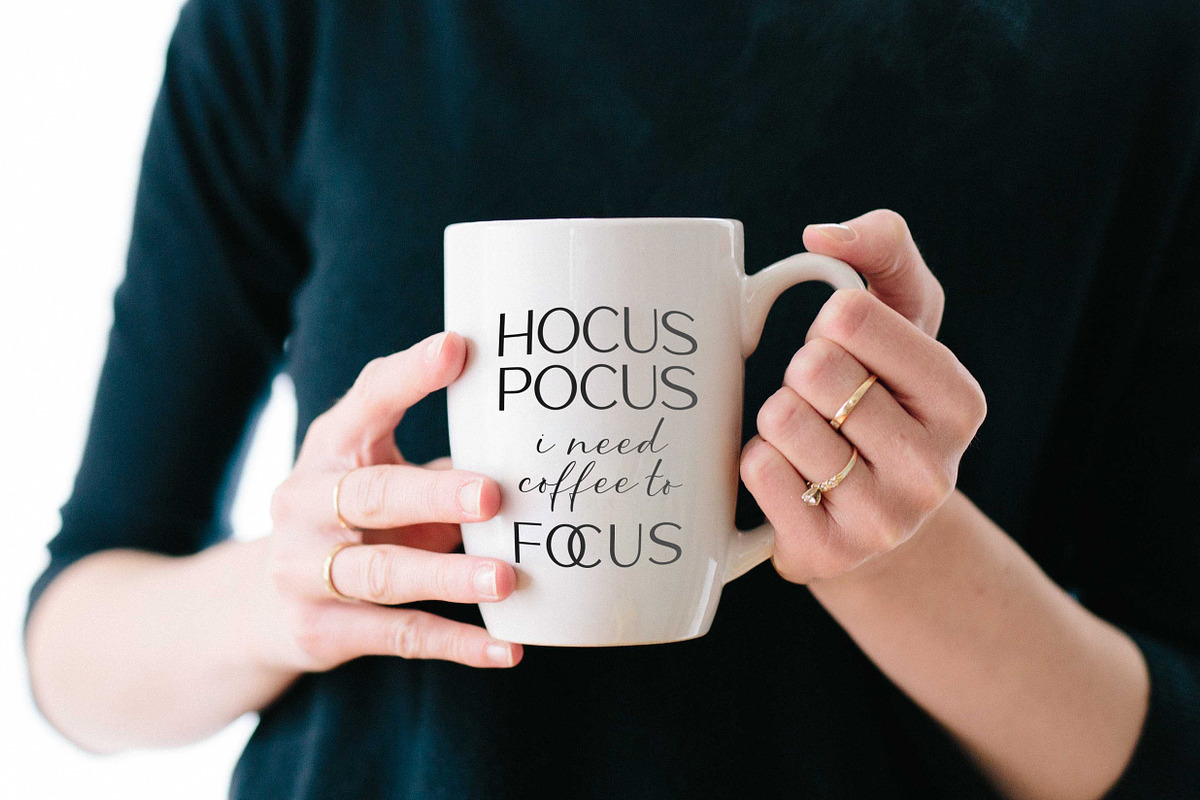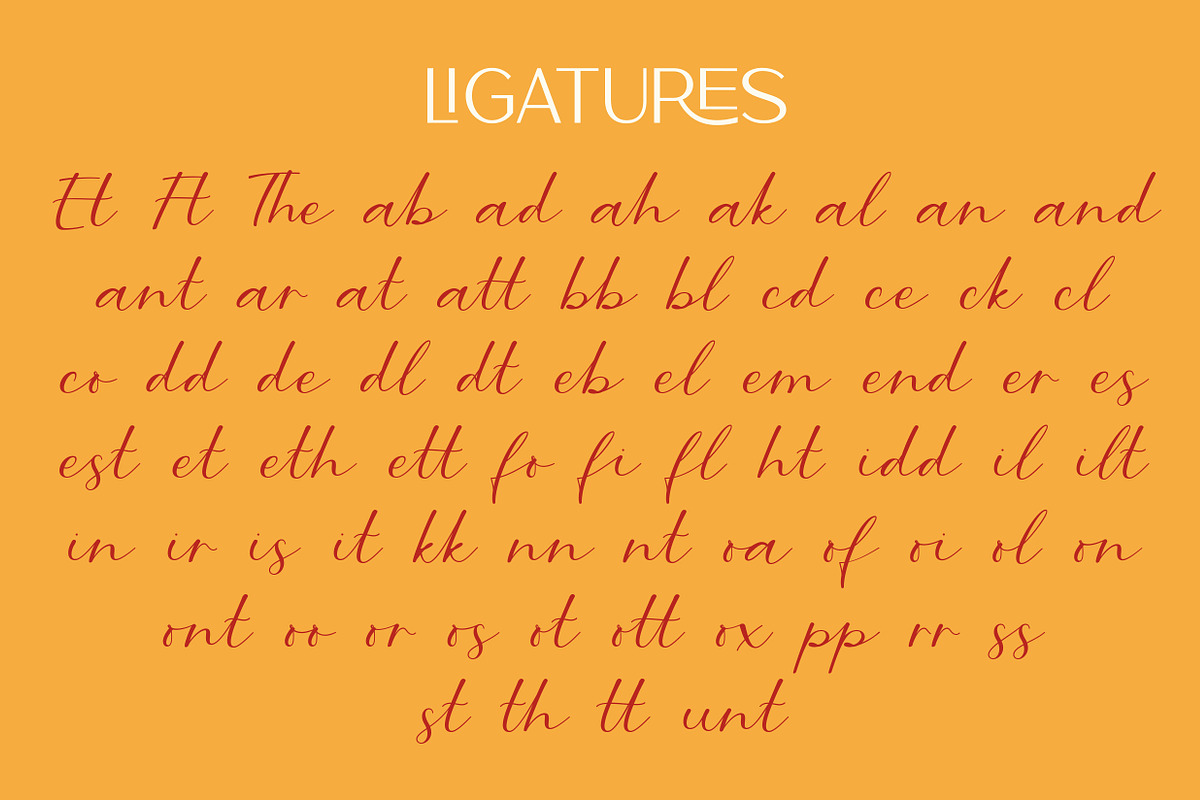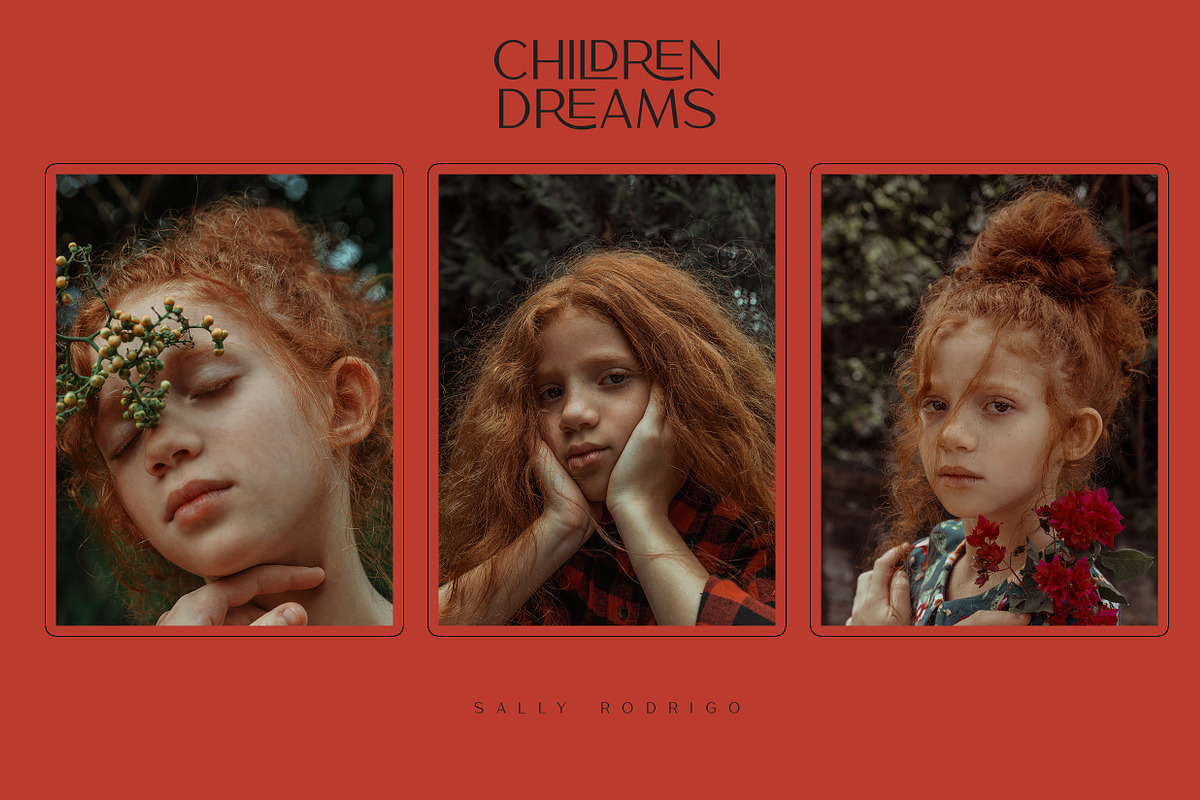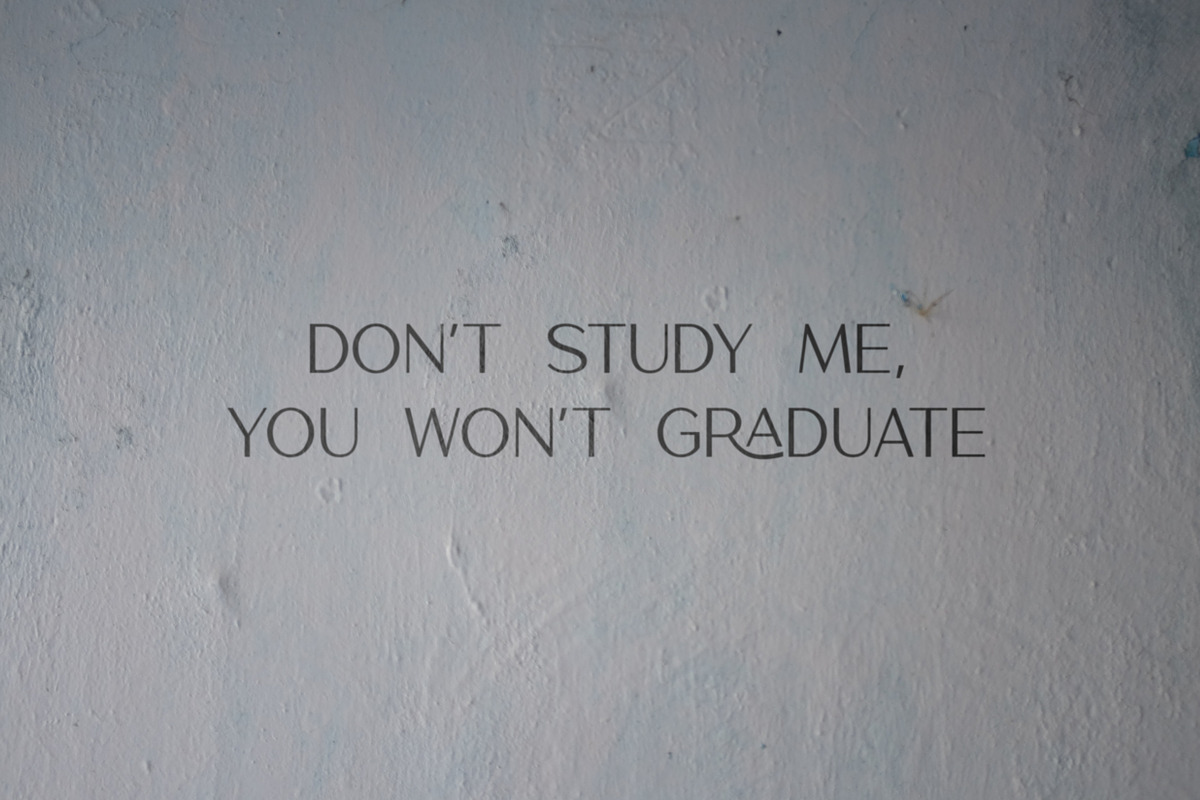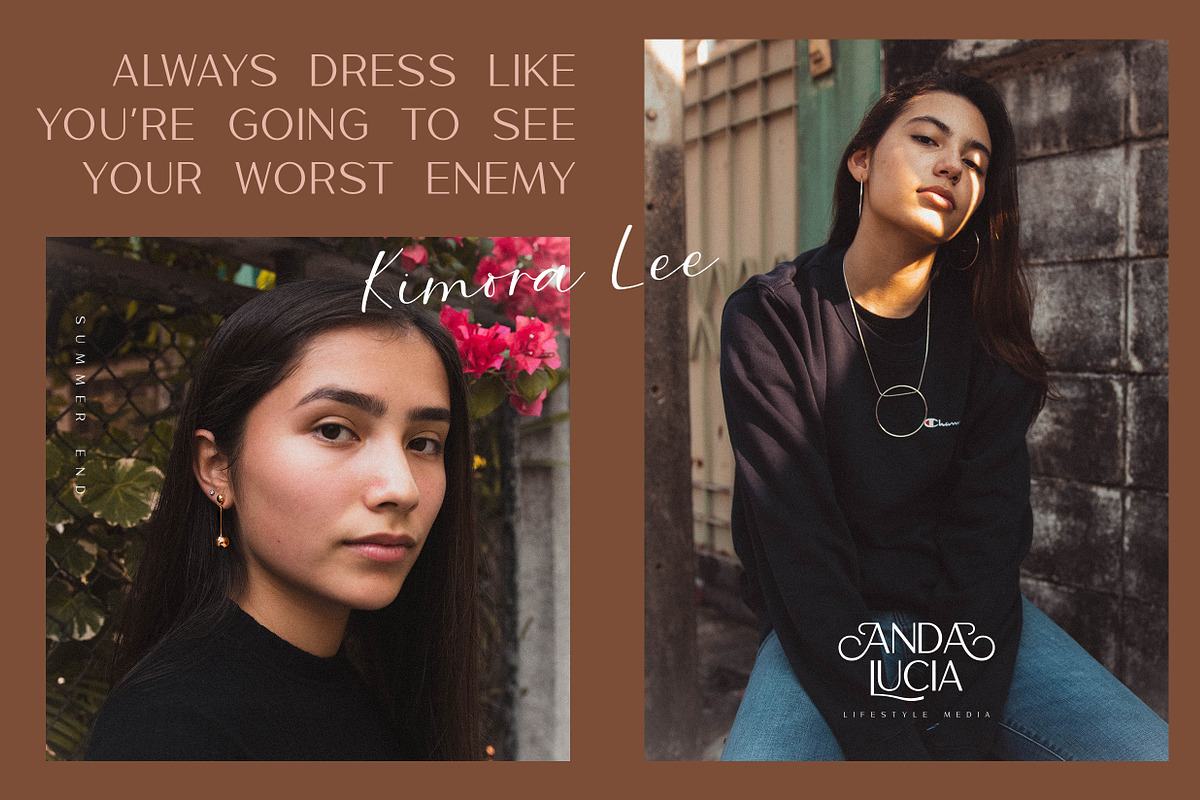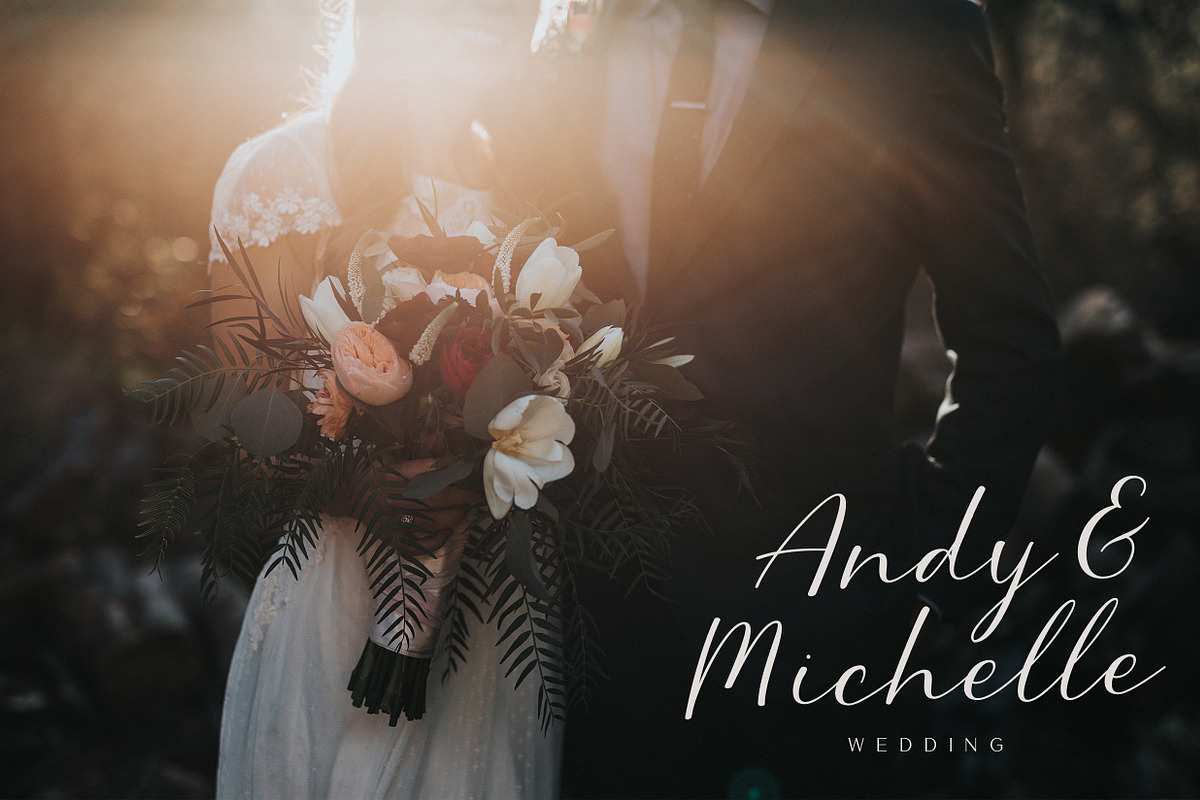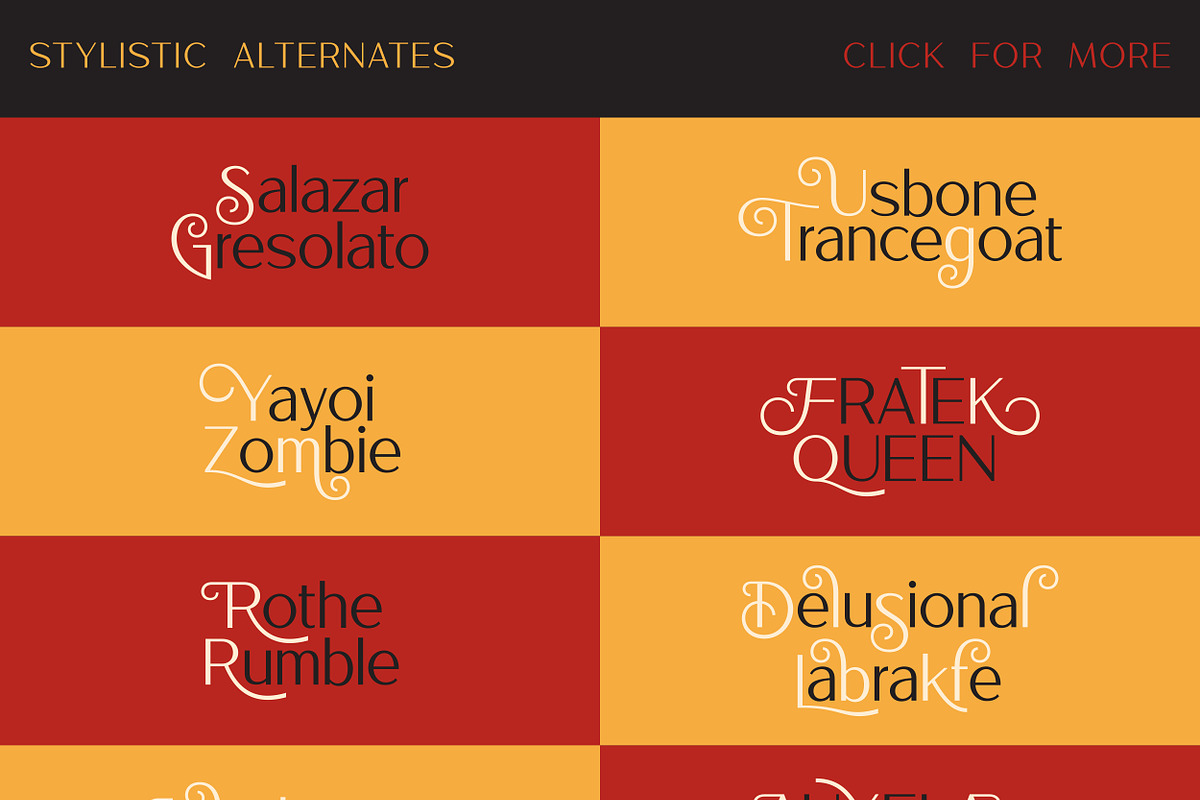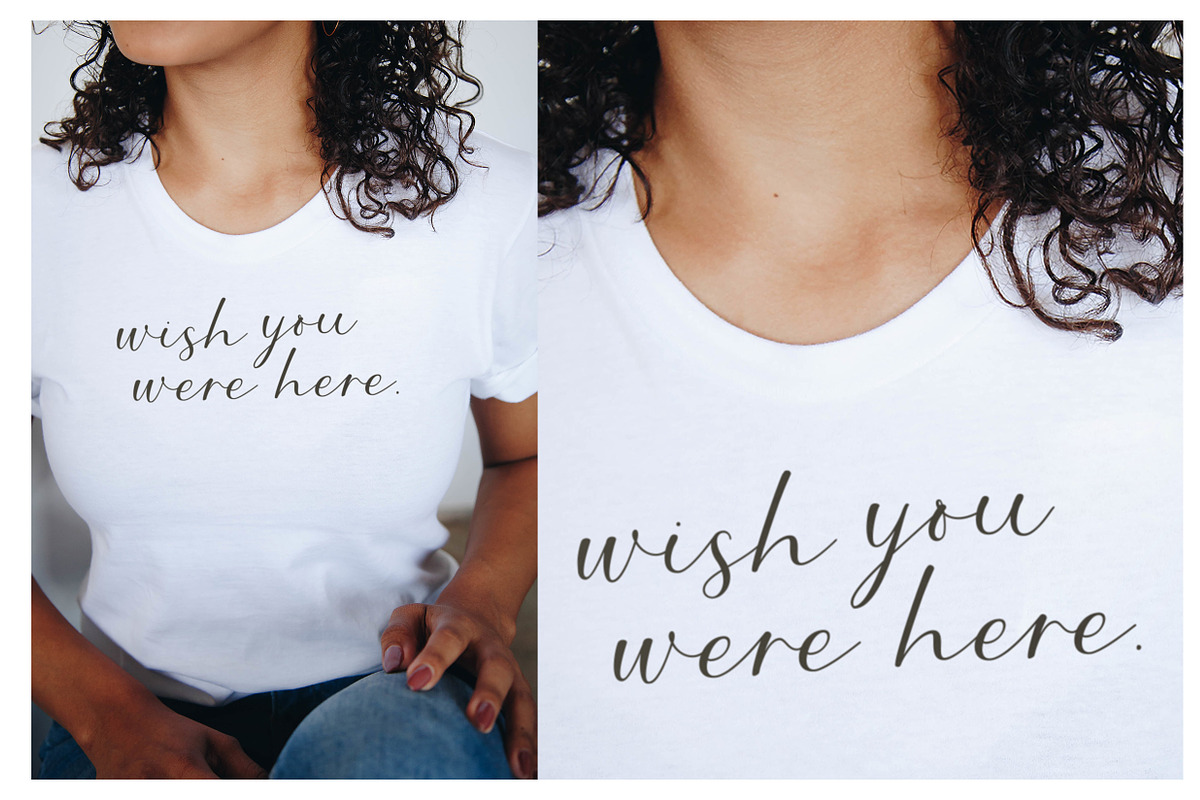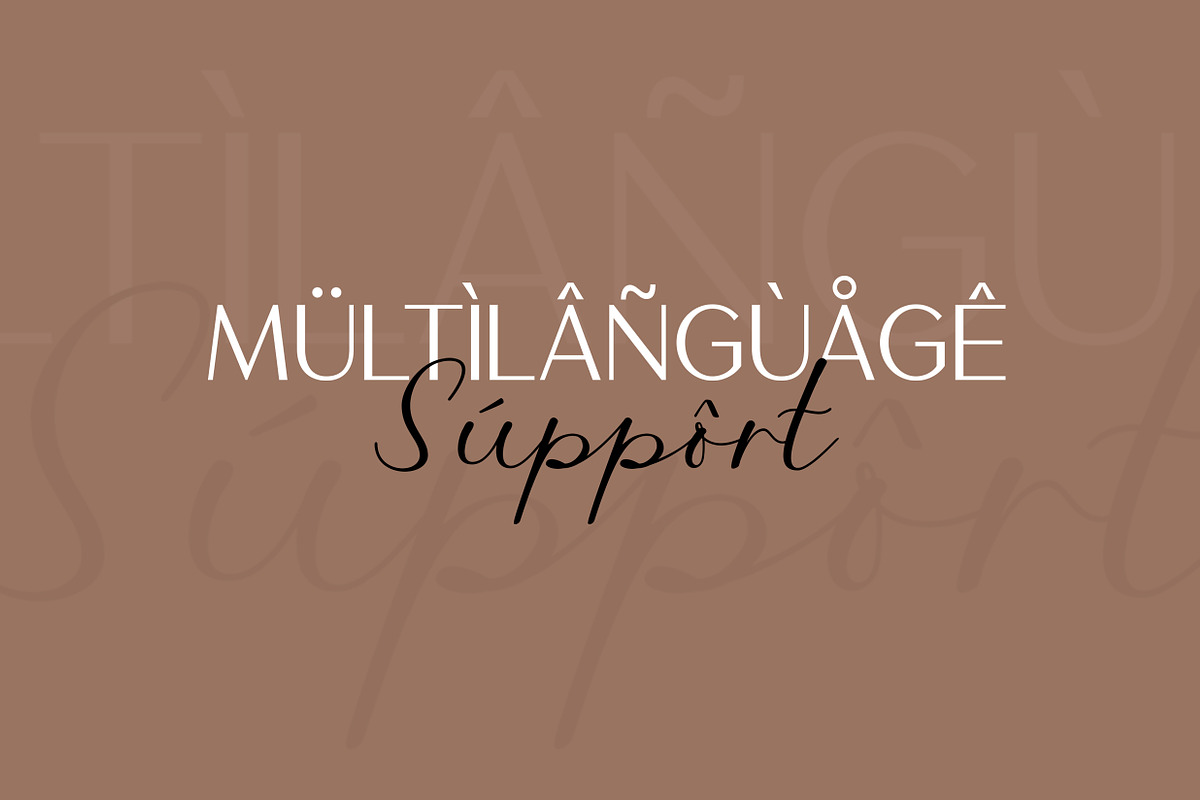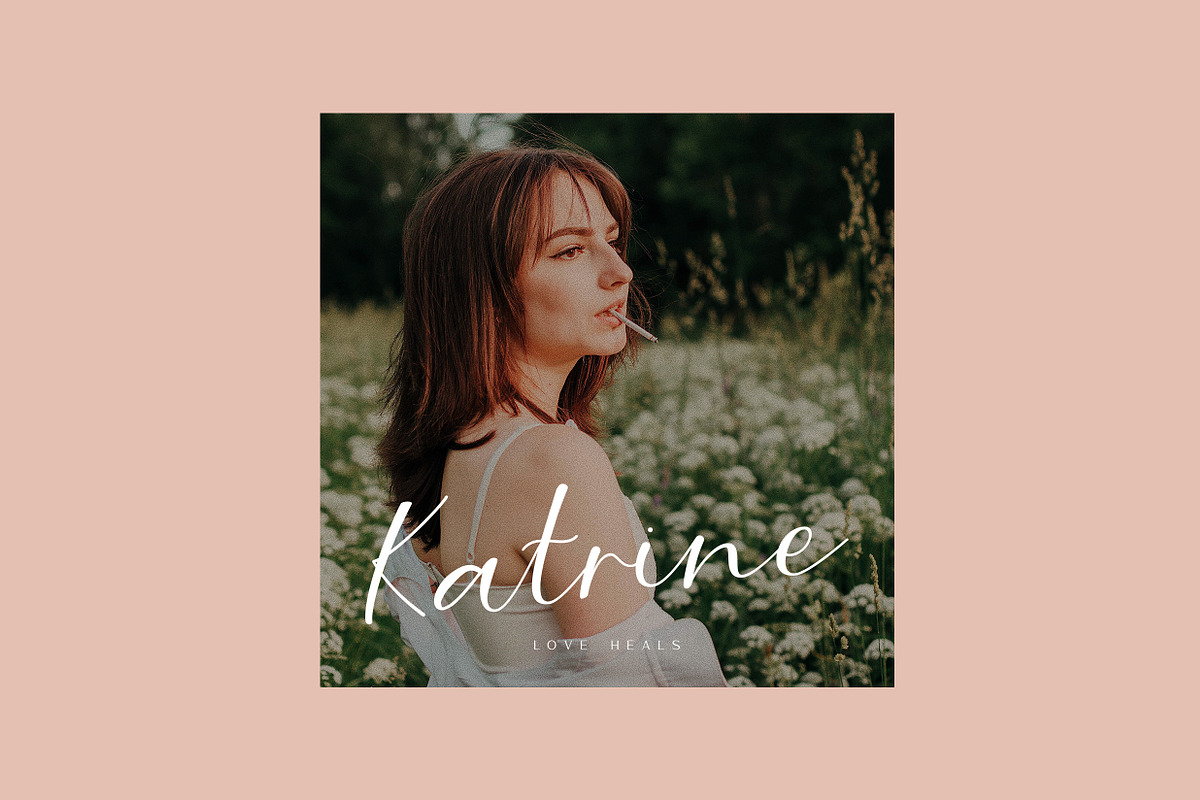
The Millava - Duo Beauty Fonts
Do you ever feel like you really wanna have a fonts that really fit into any kind of events. Just like a very good and comfort sneakers that always look good even when you're in dress or in a jeans. That's what we came from. And please welcome, The Millava. A pair of swashy decorative sans-serif and modern calligraphy script font. Carefully crafted every single letter with the realistic technic of swashes so you'll still get the logical and natural flow in each letters just like drawn by hand.
Both are done by click and click for every letters so it will absolutely clean edges. Good for big and small size of usage.